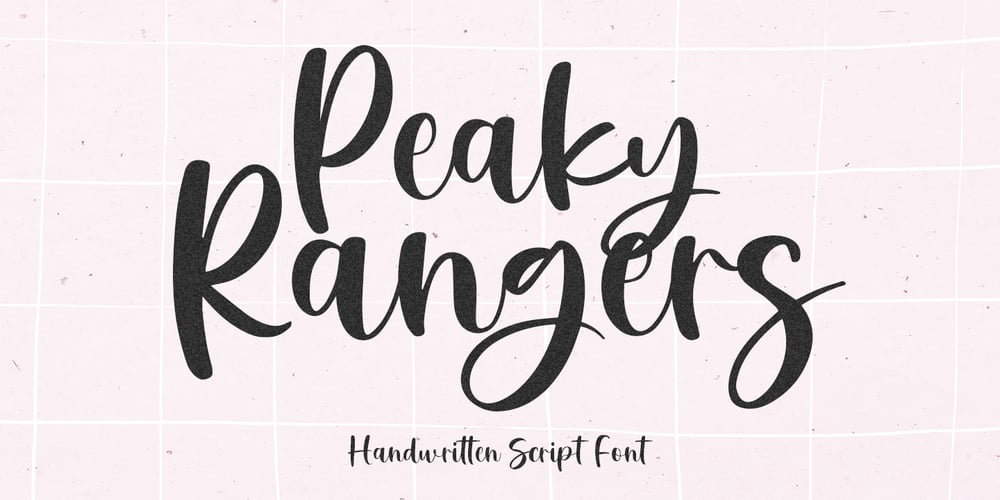
Peaky Rangers Font Family was designed by M Akmal and published by Mega Type. Peaky Rangers contains 1 styles and family package options. Introducing “Peaky Rangers”.Peaky Rangers is a handwritten script font in a modern calligraphy style, with a fun and modern look!Peaky Rangers are perfect for elegant home designs, wedding decorations, invitations, cricut projects, crafts, svg files, shirts, quotes, greating cards, branding, prints, logos, and more!Have fun using Peaky Rangers!!!I really hope you enjoy it!Feel free to follow, like and share.Thank you so much for checking out my shop!